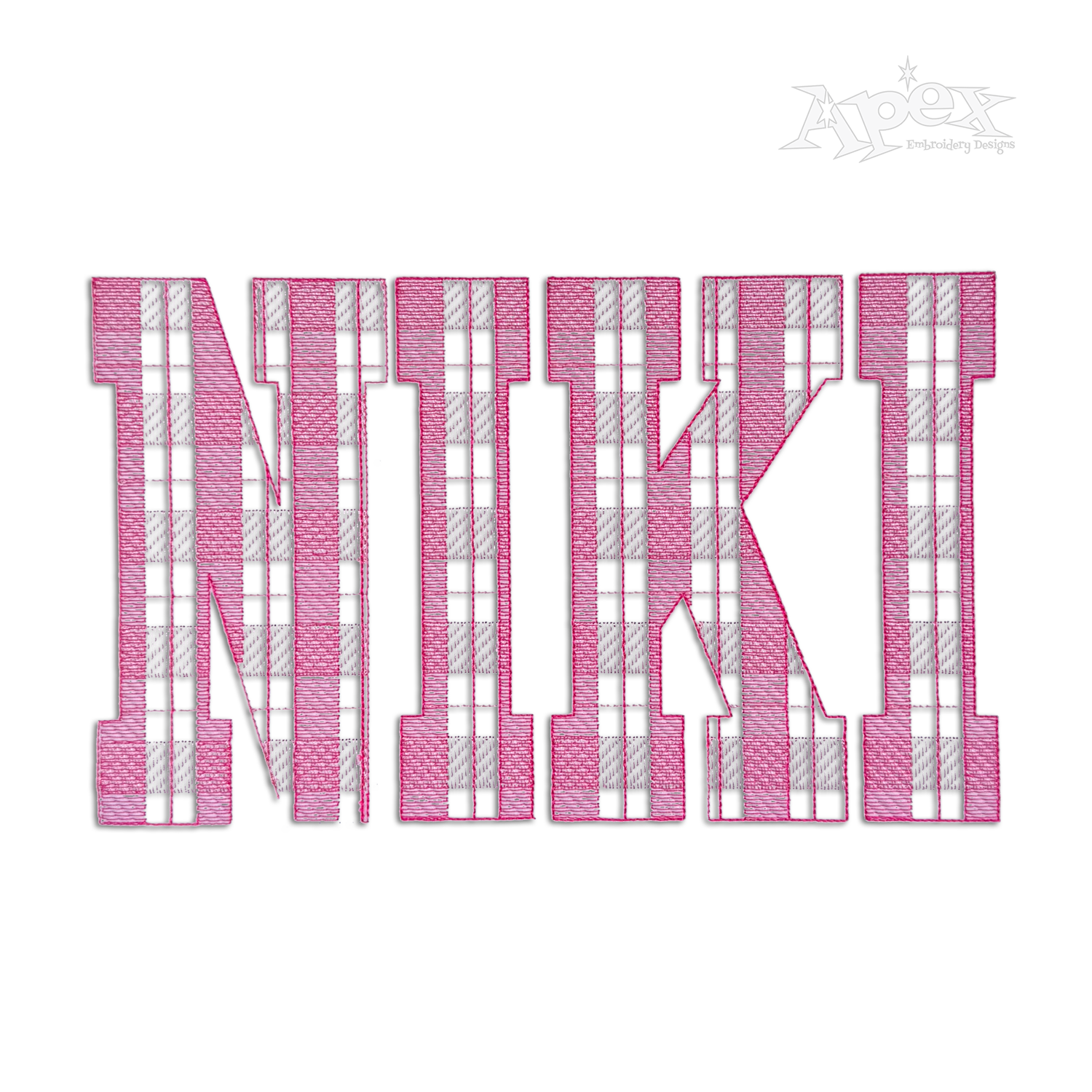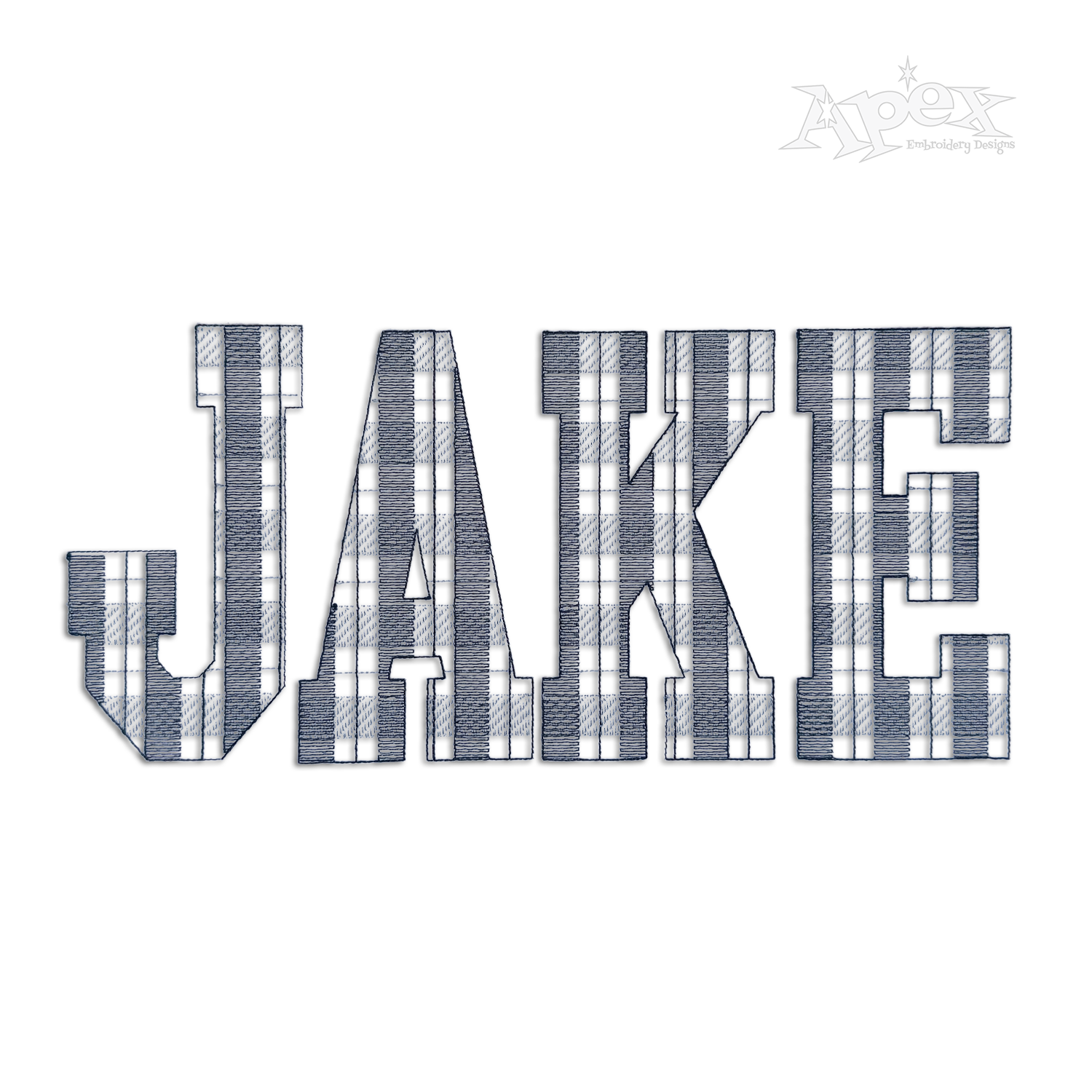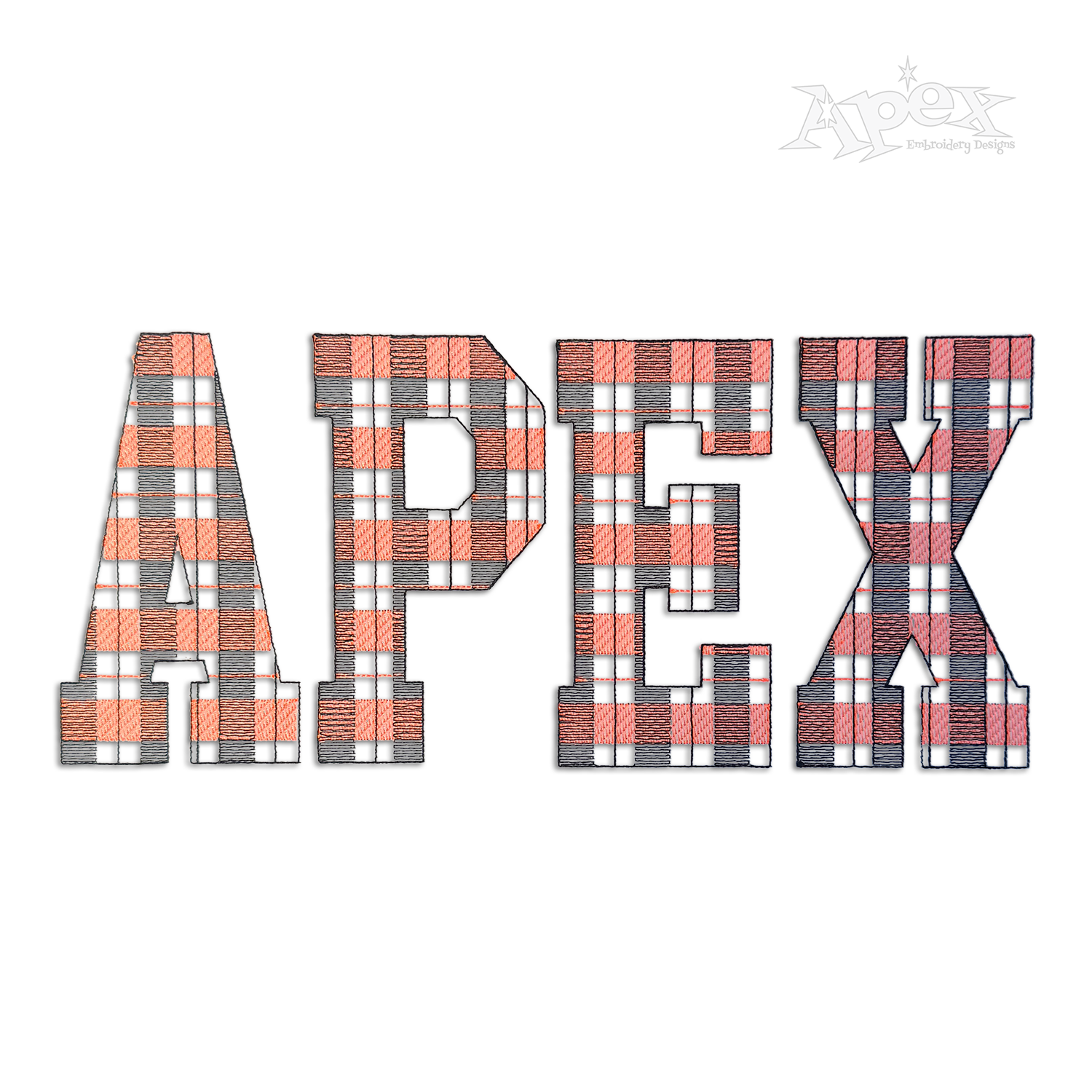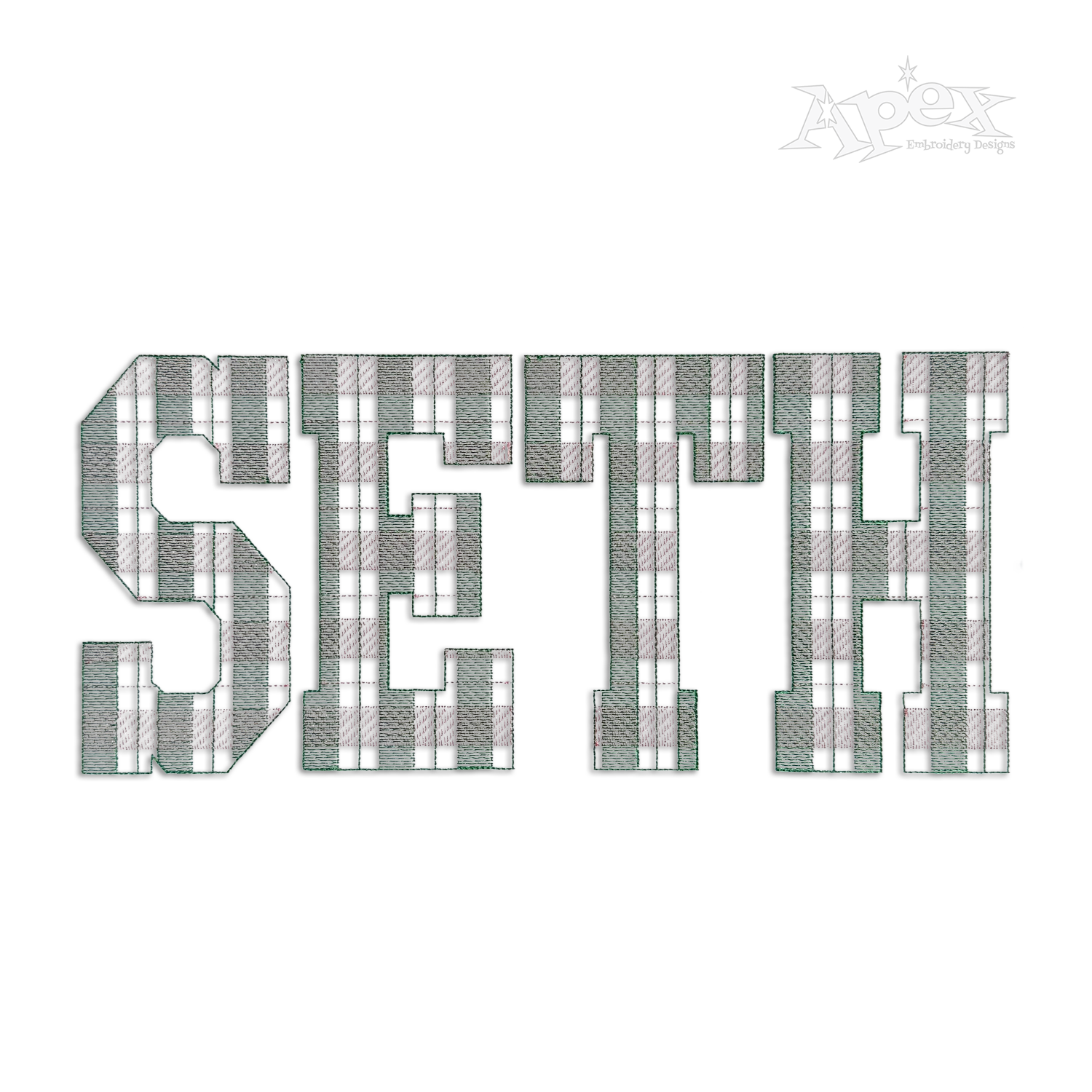
Plaid Block Embroidery Font
Inspired by the crisp cadence of autumn afternoons, collegiate banners, and heirloom woolen blankets, the Plaid Block Embroidery Font brings a storied sporting spirit straight to your embroidery frame. There is an enduring charm to classic tartan and gingham check—a visual warmth that immediately feels nostalgic yet cleanly modern. In drafting this typeface, our studio set out to translate the rich, woven look of yard-dyed textile patterns into pure needlework. The result is a bold, architectural block letter infused with an intricate geometric crosshatch fill, lending every stitch-out the tactile substance and dimensional shadow of an authentic woven fabric.
- Custom Monogramming Flexibility: While styled as an athletic, collegiate block alphabet rather than a traditional intertwined script, you can easily craft bespoke three-letter monograms by flanking an oversized center initial (such as the 6-inch size) with smaller 3-inch or 4-inch side initials.
Project Ideas for Plaid Block Embroidery Font
The preppy, sporting appeal of buffalo check and gingham lends itself to high-end personalized stitching across every season:
- Collegiate & Game Day Wear: Personalize fleece pullovers, vintage-wash crewnecks, and stadium zip-ups with graduation years, school initials, or player jersey numbers.
- Heirloom Holiday Keepsakes: Stitch bold family initials onto plush velvet or linen Christmas stockings, fireside throw blankets, and coordinated family holiday pajamas.
- Bespoke Gifting & Luggage: Embellish heavy-duty canvas boat totes, weekend duffel bags, tennis racquet covers, and travel dopp kits with timeless, masculine or preppy monograms.
- Rustic & Resort Table Linens: Elevate fringed cabin runners, outdoor dining placemats, and bespoke picnic basket liners for upscale country living.
- Back-to-School & Youth Apparel: Add charming, durable name initials to denim jackets, corduroy jumpers, and school gear bags.
Because of its robust silhouette and textured interior, this font anchors garments and home textiles with exceptional poise:
- Center Chest Placement: The natural home for the 4-inch and 6-inch scales on sweatshirts, hoodies, and jackets, creating an authentic varsity athletic aesthetic.
- Corner Diagonal Accents: Position the 4-inch or 6-inch letter along the corner of heavy flannel throws, picnic blankets, or heirloom quilts to showcase the textured fill against smooth fabrics.
- Above Pocket & Left Chest: Utilize the 3-inch letters for an understated, tailored look directly centered over shirt pockets, fleece vests, or canvas apron bibs.
- Vertical Sleeve Alignments: Stack numbers or initials vertically down a hoodie sleeve or along a pant leg for modern collegiate streetwear styling.
Plaid Block Embroidery Font Craft & Letterform Details
Digitizing a faux-weave check pattern requires far more than dropping a generic pattern stamp across a vector letter. To prevent the dense gridwork from becoming bulletproof or distorting the underlying garment, each segment of the plaid pattern was digitized with calculated needle penetrations and directional satin framing. The alternating light and dark check blocks are achieved by thoughtfully orienting thread paths, balancing light refraction across rayon and polyester threads to mimic the matte and sheen interplay of woven yarns.
Surrounding each letterform is a clean, definitive edge that maintains crisp vertical pillars and sharp horizontal crossbars, ensuring that the open geometric fill never loses its strong block definition. By balancing stitch density against open negative space, our digitizing ensures that the fabric retains a soft, supple hand even at the commanding 6-inch scale—delivering a finished embroidery piece that feels as luxurious to touch as it is striking to behold.